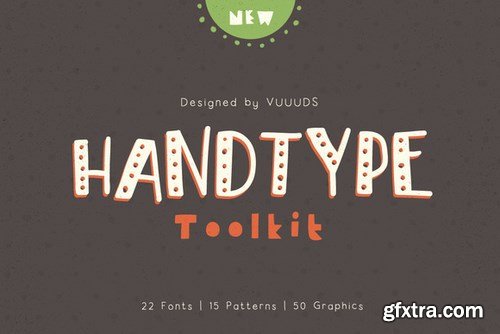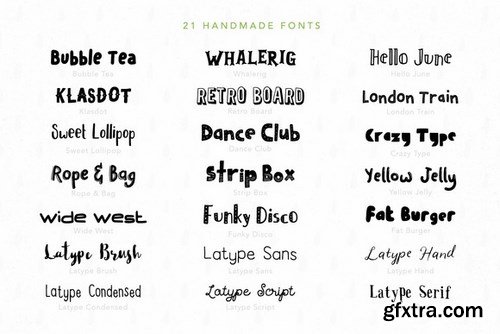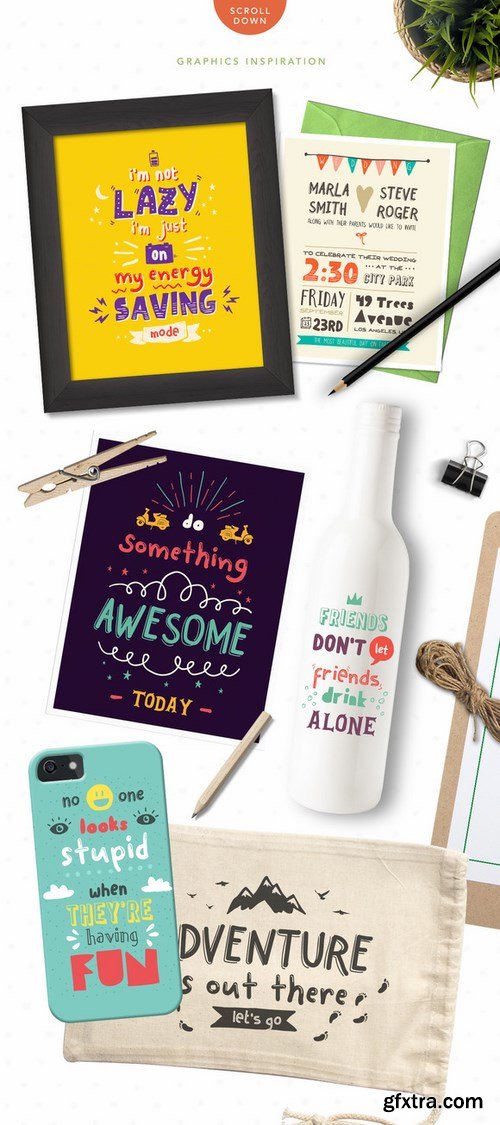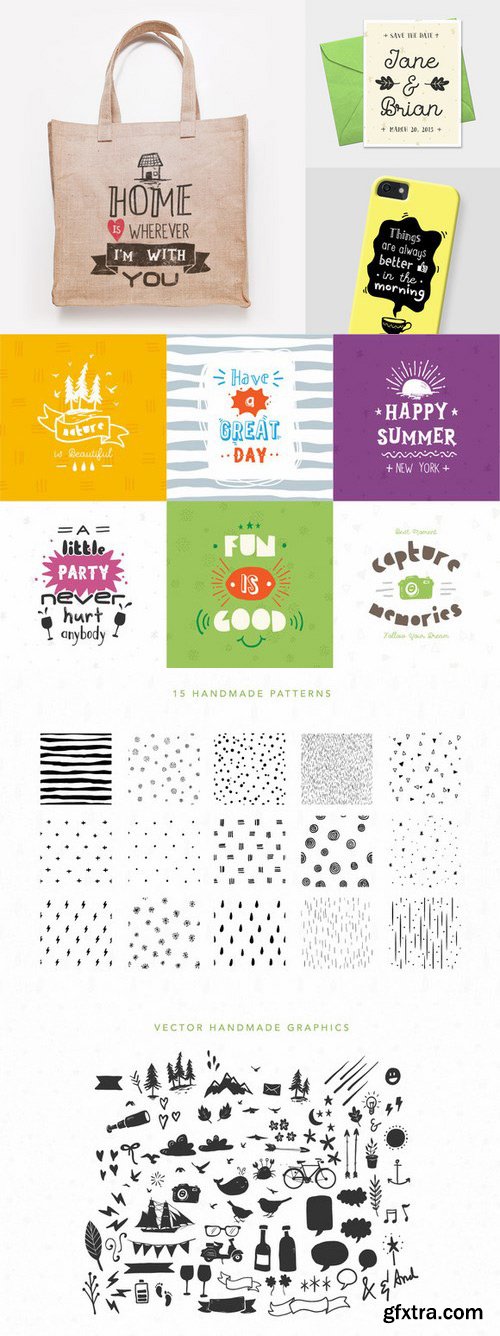
- by vuuuds in Fonts Intro sale with special price only $22! (original price $240, SAVE $218) This pack contain 22 Handmade Fonts, 15 Patterns, 50+ Vector Graphics and 6 Beautiful Quotes Design. Every single letters created with hard work and lot of time consumed to make beautiful font results. This pack can be used for quotes, poster, wedding invitation, branding, logo, fashion, apparel, letter, invitation, stationery, etc. With beautiful patterns inside this products will improve your design looks more awesome.